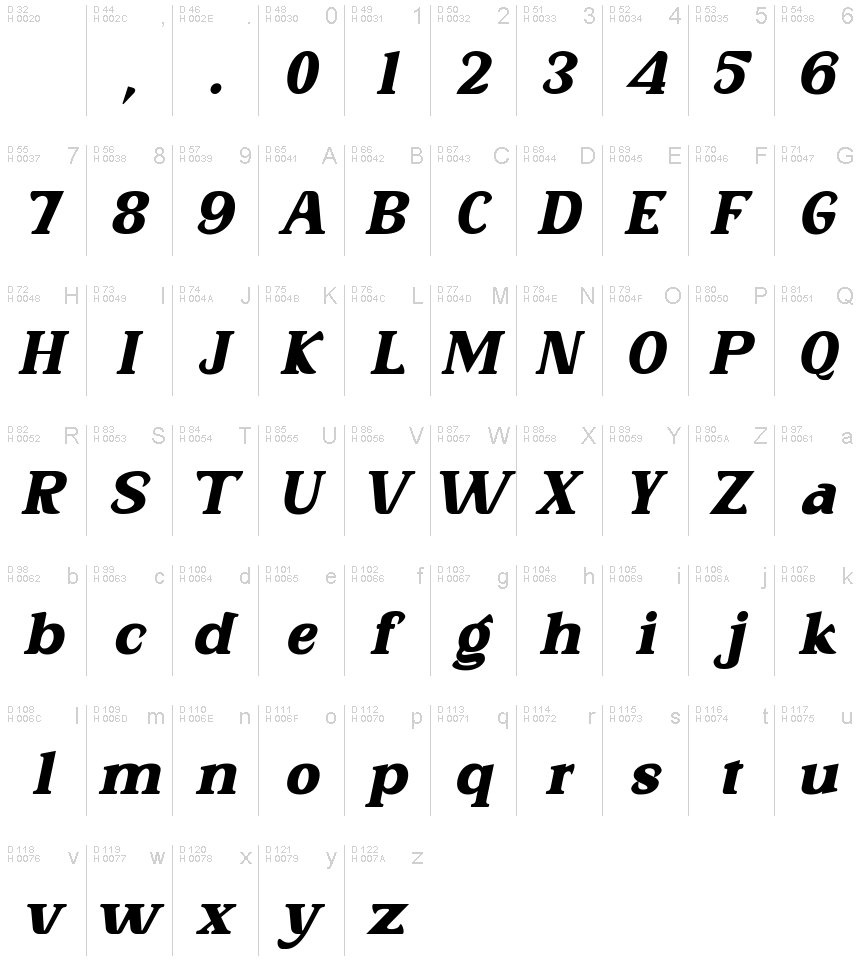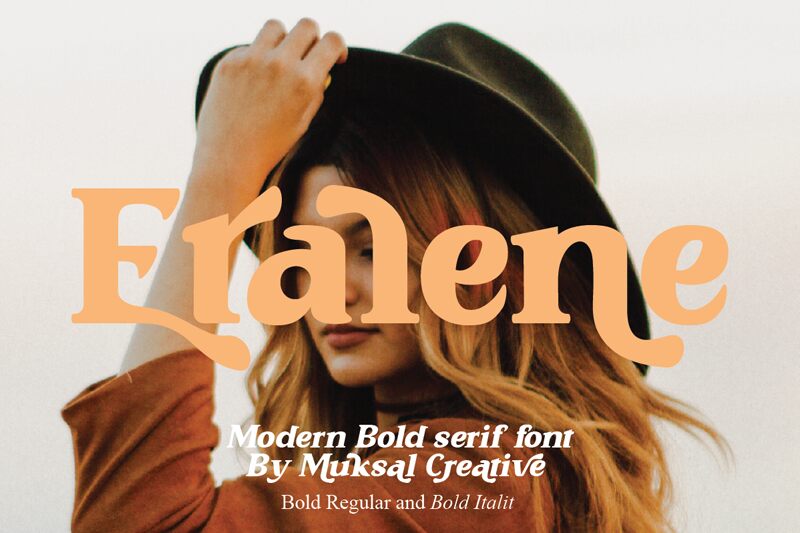
Etalene Bold Italic
Etalene Bold Italic font is a smooth, energetic serif typeface designed by Muksal Creative. This free font has a playful nature radiating the glamour and elegance of a vintage style that glows with luxury. A rich artistic vibe visualizes typical serifs in an attractive bold weight which adds comfort to its playful design.